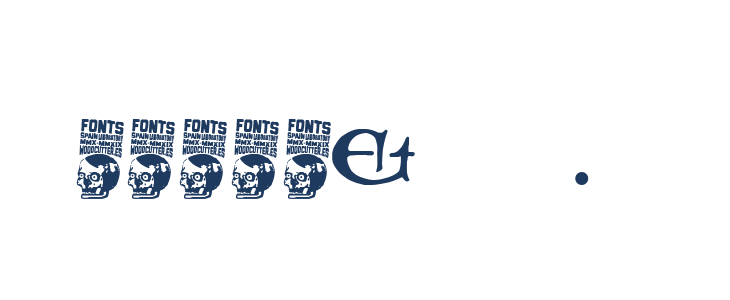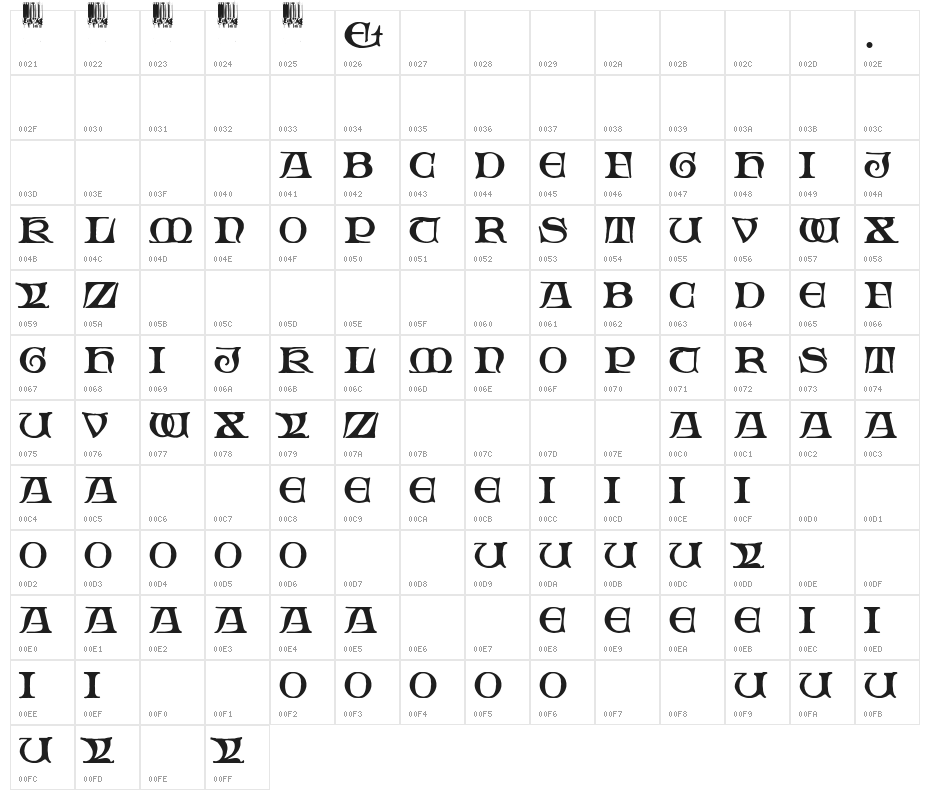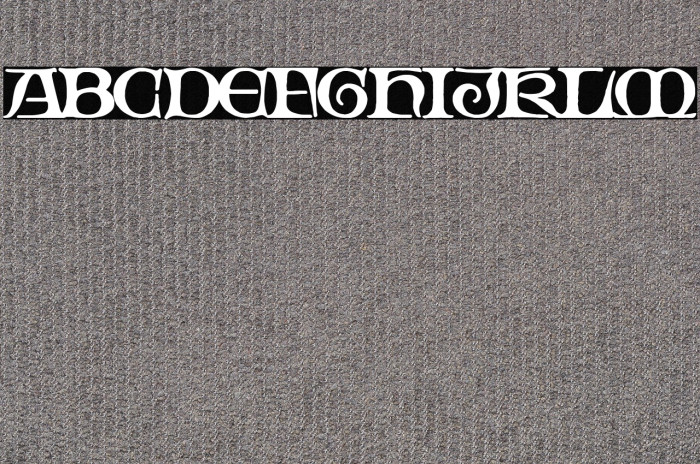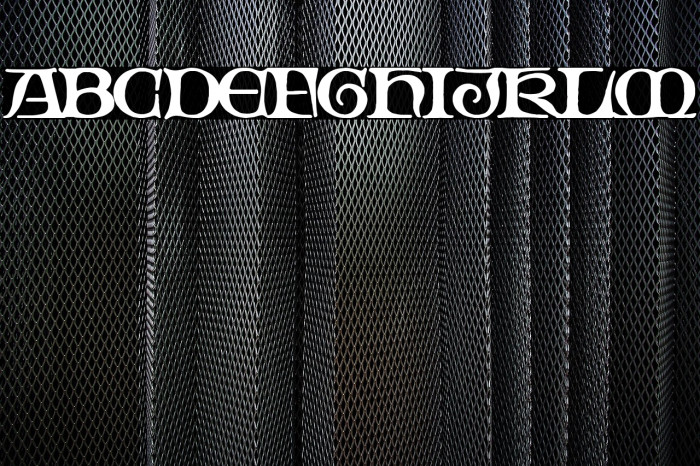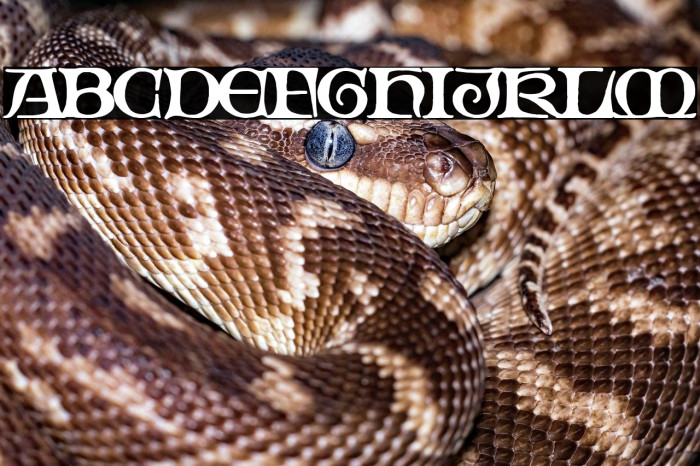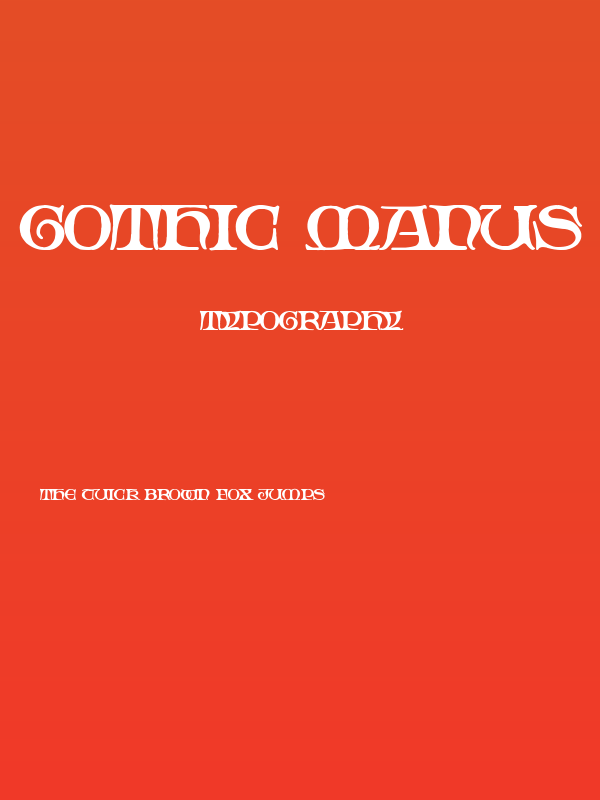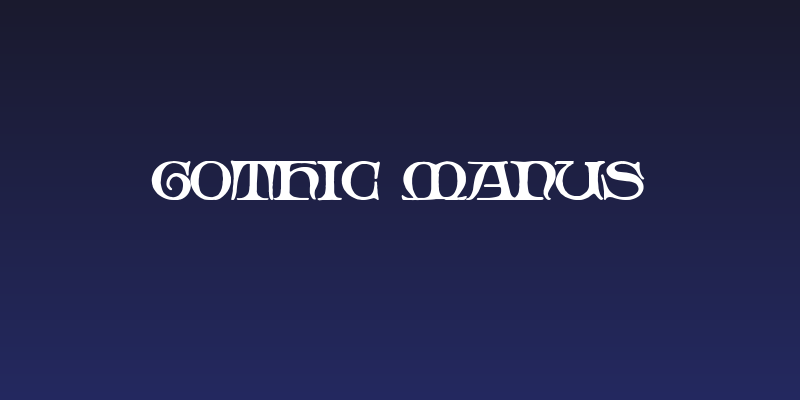
Gothic Manus Font
Gothic Manus Description
This font features a bold and intricate design, reminiscent of Gothic script with a modern twist. The characters are highly stylized with sharp edges and elaborate curves, creating a dramatic and eye-catching appearance. The uppercase letters are particularly ornate, with unique flourishes that add to the overall aesthetic. The lowercase letters maintain a consistent style, ensuring readability while still offering a decorative flair. The numbers and special characters are designed to match the elaborate style of the alphabet, making this font suitable for projects that require a strong visual impact.
| Overall Style | Modern Gothic |
| Proposed Projects | Ideal for use in branding, posters, album covers, and any project requiring a bold, dramatic typeface. |